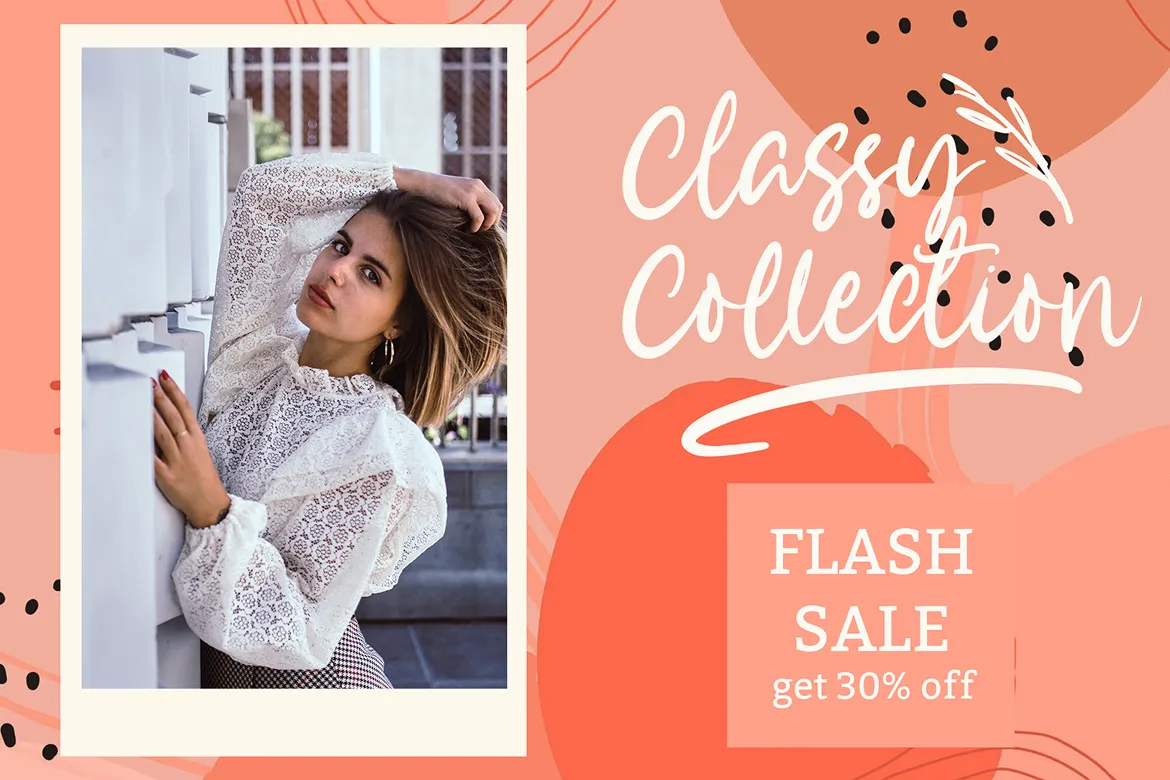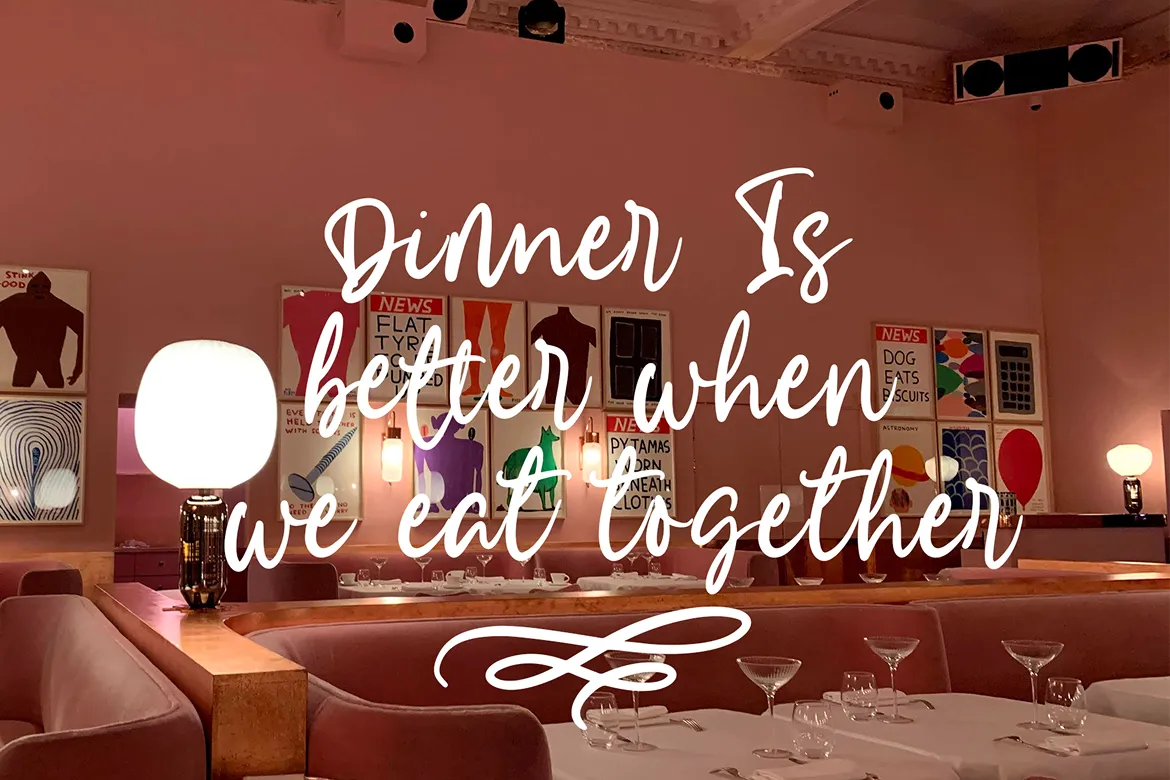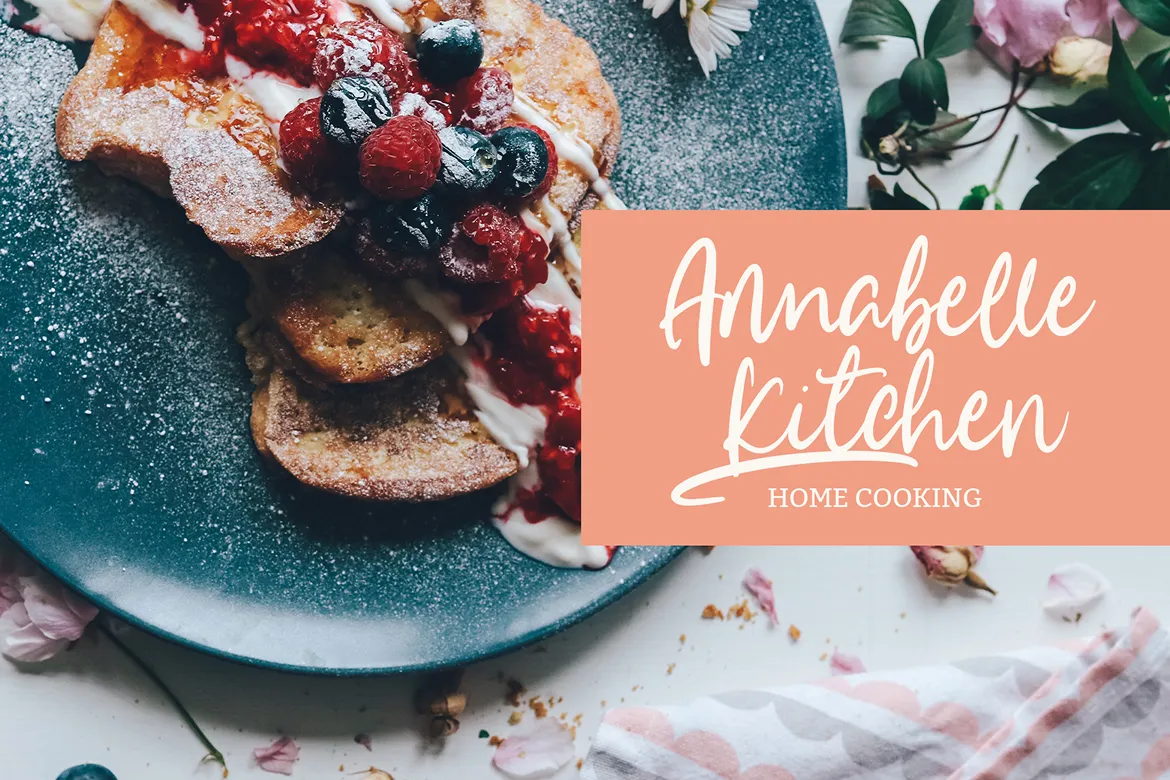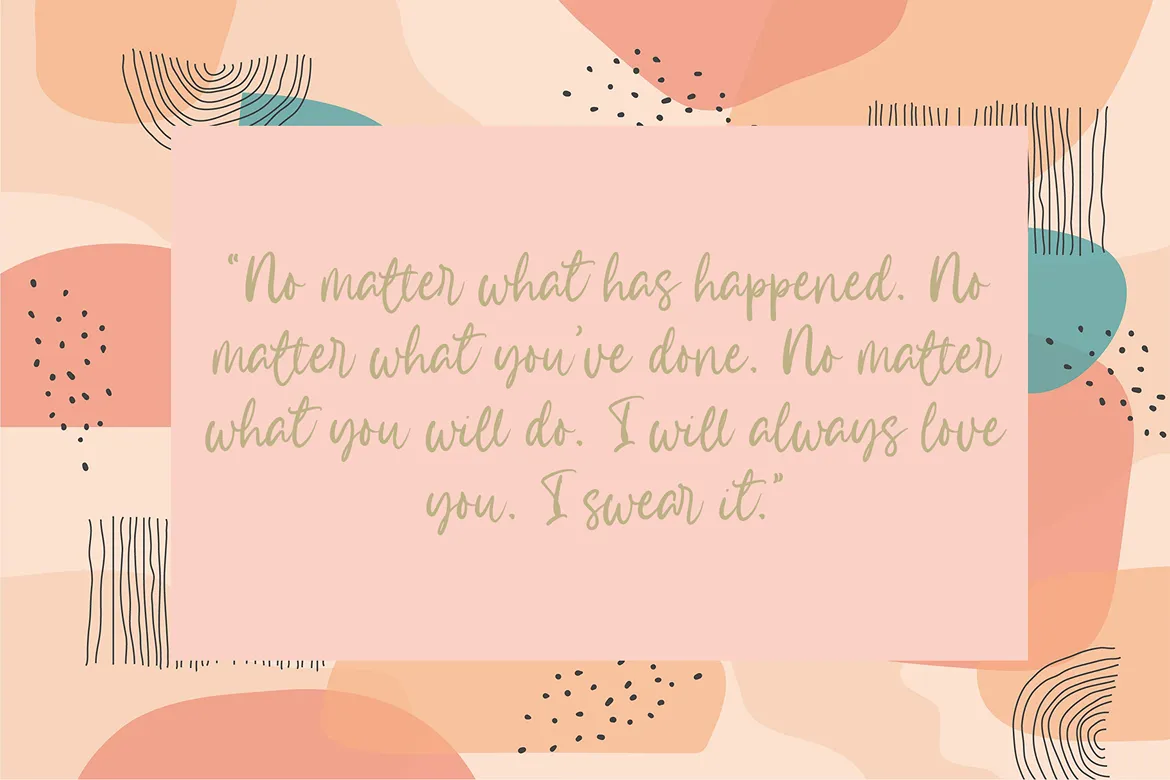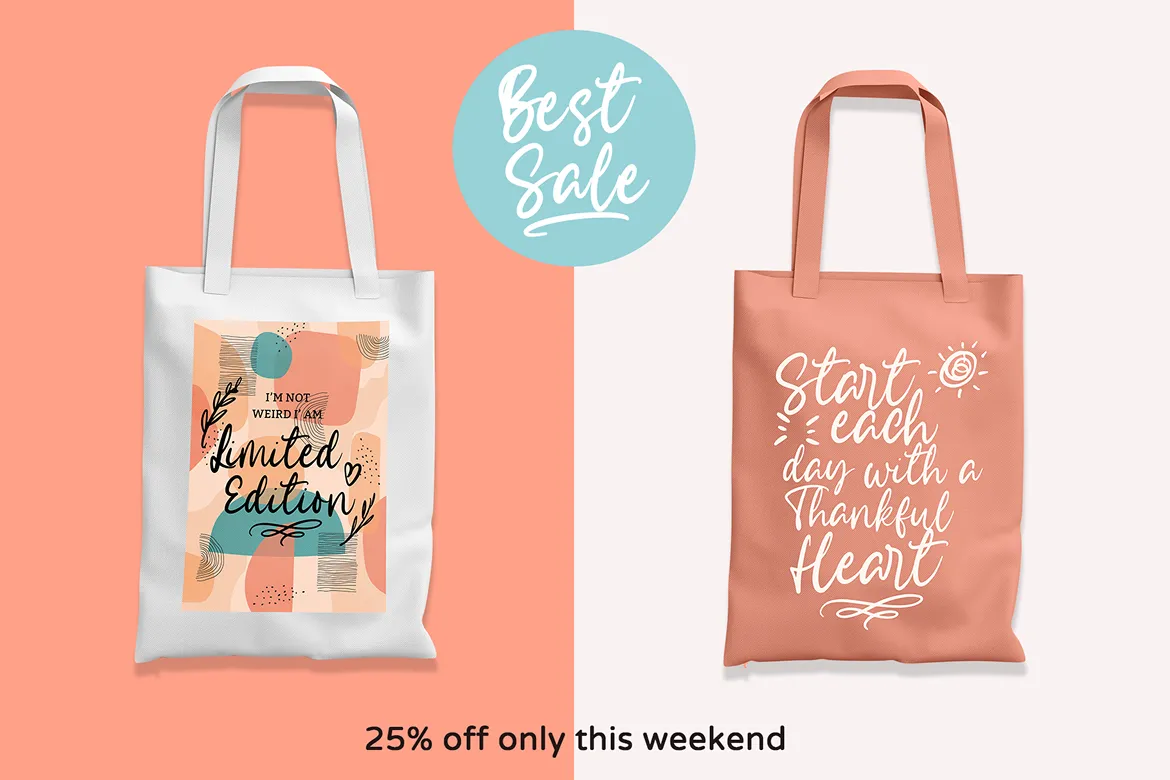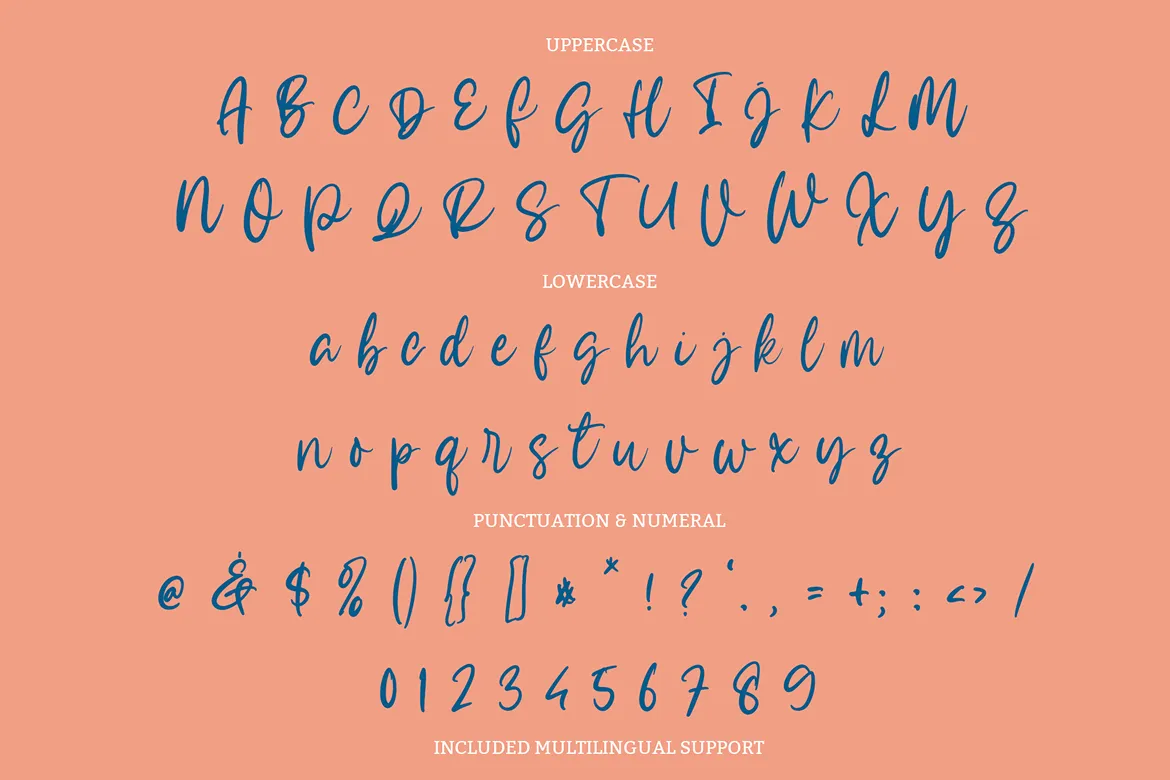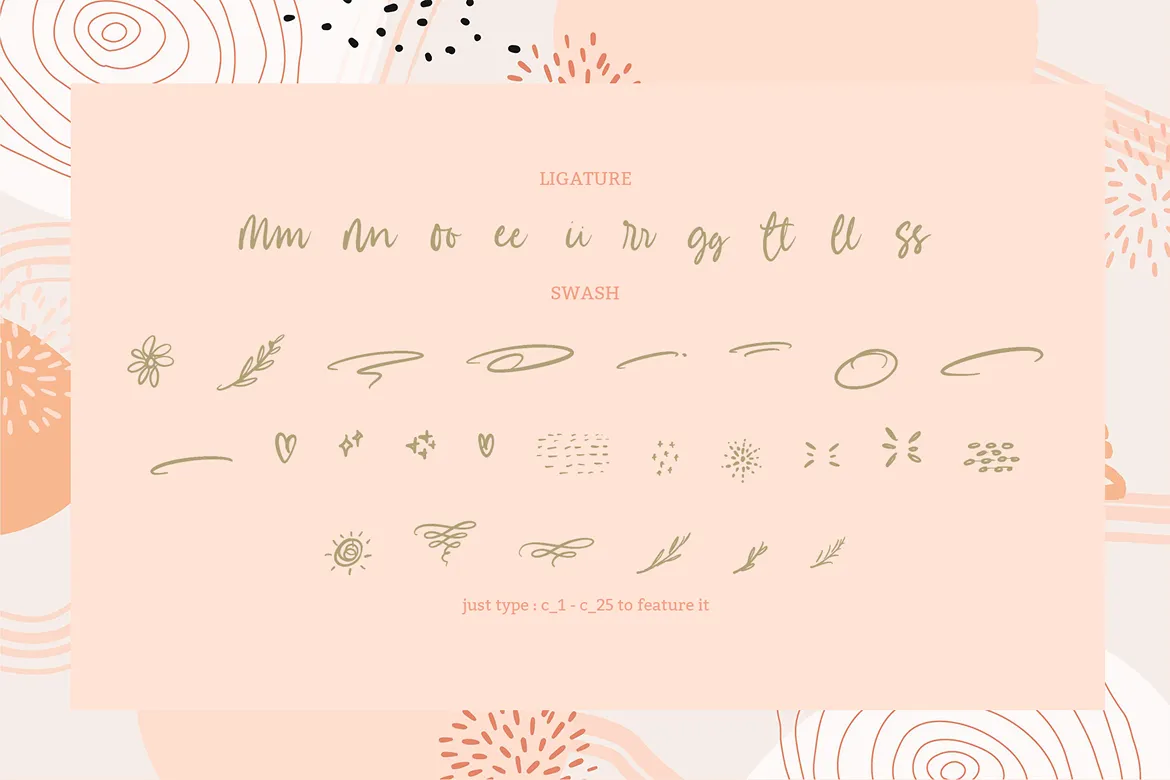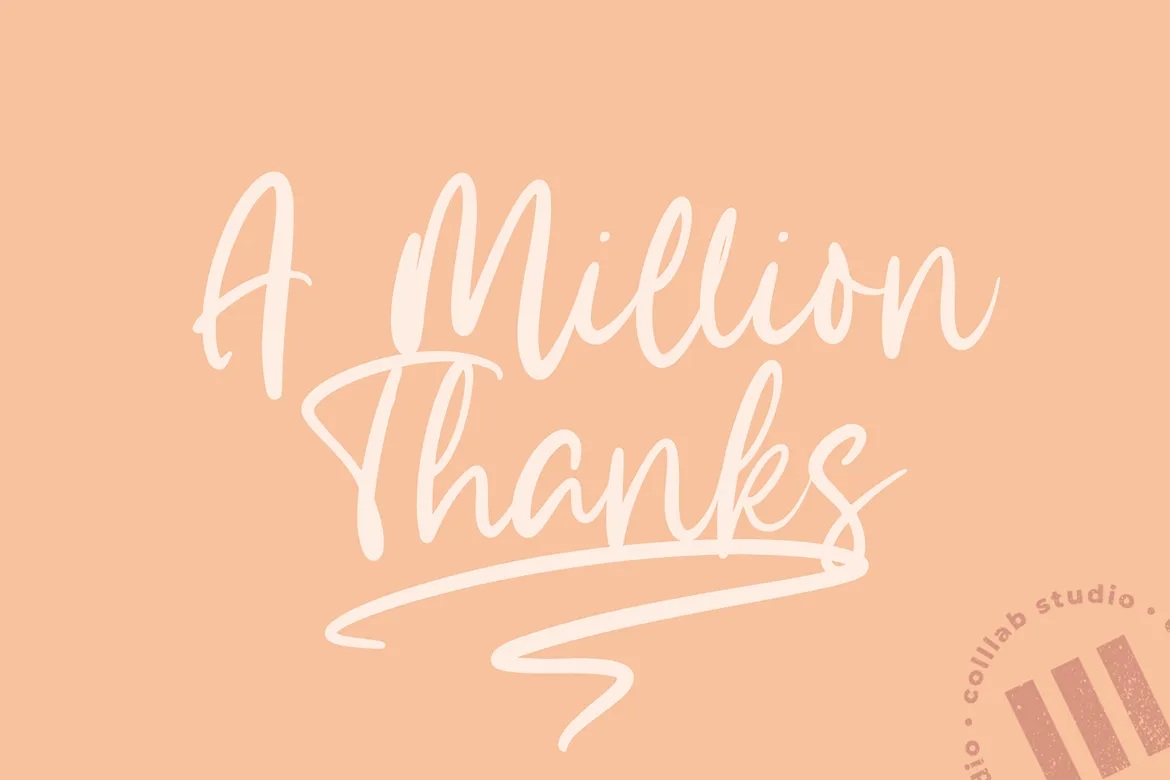
Betsy Bailey is a stylish modern script font crafted with a handmade calligraphy touch and decorative flair. Featuring an irregular baseline, natural ligatures, and delicate swashes, it offers an authentic handwritten feel that blends both femininity and elegance. Whether for branding, invitations, packaging, or digital content, Betsy Bailey brings warmth and sophistication to every design. Its versatility makes it a timeless choice for creatives who want a handwritten font that feels both personal and professional.
Inspiration Behind the Font
Betsy Bailey was inspired by the graceful movement of handwritten notes and the charm of personal expression. Each curve is designed to reflect artistry, making it perfect for adding individuality to design work.
Key Features
Full uppercase & lowercase characters
Numbers & punctuation
Beautiful ligatures (mm, nn, oo, and more)
Elegant swashes for creative flair
Multilingual support